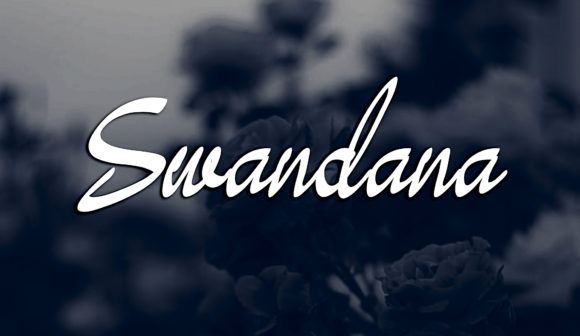
Introducing Swandana Font - A Script That's a Masterpiece of Both Class and Elegance
Unleash your creativity with Swandana Font, a script that embodies both sophistication and ease. Its straight baseline and exquisite ligatures dance together in perfect harmony, creating an effortless flow that will captivate your audience.
Imagine the transformative power it will bring to your designs. From chic invitations and stylish social media posts to breathtaking logos and dazzling merchandise, Swandana Font will add a touch of magic to every project. Immerse yourself in its modern charm and watch as your creations blossom into masterpieces.
Swandana Font isn't just a font; it's an invitation to elevate your artistry. Embrace its allure and let it guide you towards captivating designs that will leave a lasting impression.